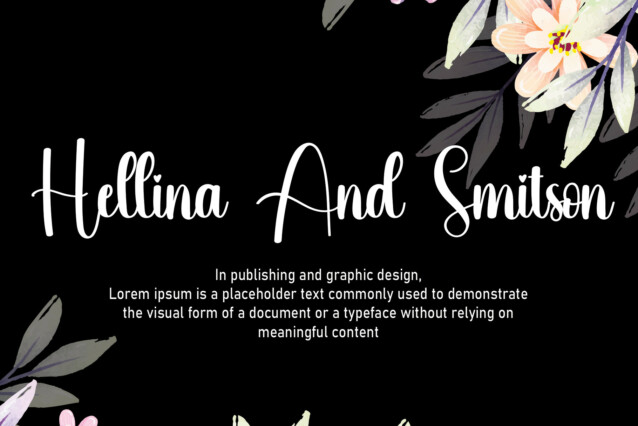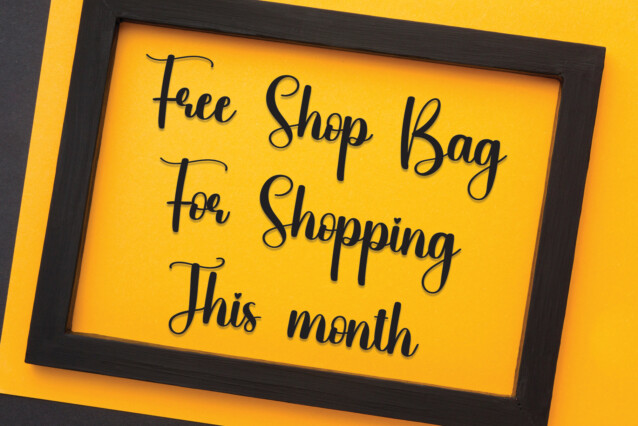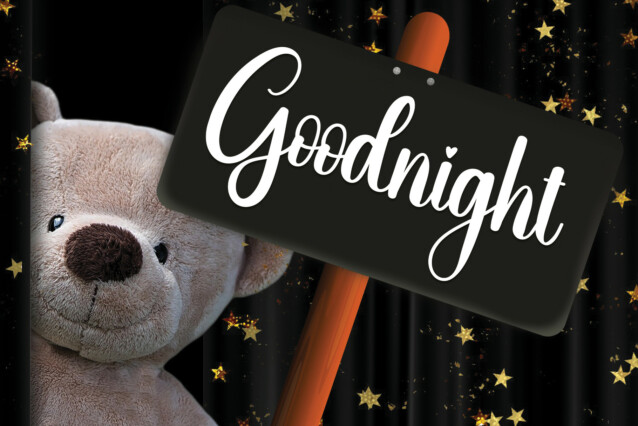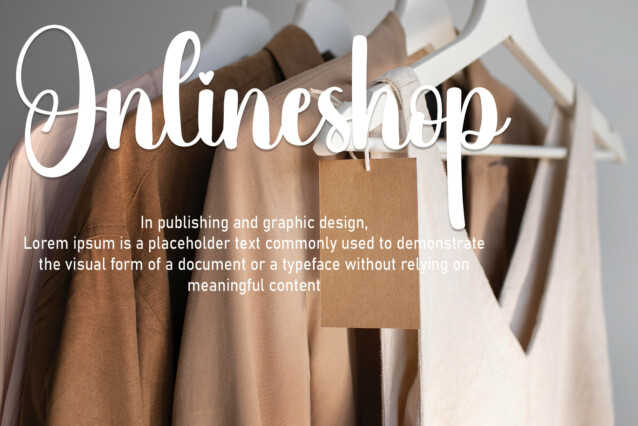
Blessed Friday Script Font
Blessed Friday Script Font is a romantic and sweet calligraphy typeface with characters that dance along the baseline. It has a casual, yet elegant touch.